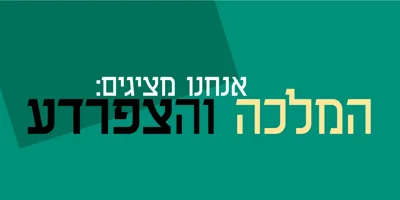
Tagmulim MF Font
Tagmulim MF Font is perfect for cultural publications, international branding, multilingual designs, religious institutions, heritage projects, academic materials, and cross-cultural communications. This specialized typeface brings authentic character and linguistic precision to diverse global applications.
Tagmulim MF Font is exciting because it combines traditional typographic heritage with modern functionality, featuring carefully crafted letterforms that honor cultural authenticity while ensuring optimal performance in contemporary multilingual design contexts and digital environments.
The Tagmulim MF Font family includes multiple weights and extensive character sets supporting various languages and scripts. This comprehensive collection provides designers with complete typographic solutions for complex multilingual and cultural communication projects.
Tagmulim MF Font offers designers access to a thoughtfully crafted typeface that bridges cultural traditions with modern design requirements. This distinctive font features meticulously designed letterforms with authentic character details that respect linguistic heritage while ensuring exceptional functionality across digital and print applications. The typeface showcases careful attention to cultural sensitivity and technical precision that ensures accurate representation of diverse languages and scripts. Its specialized character makes it particularly suitable for organizations and projects that require authentic cultural communication and linguistic accuracy. Tagmulim MF Font delivers consistent performance across various multilingual applications while maintaining cultural integrity and visual coherence. The font's heritage-conscious design and professional quality make it an essential tool for designers working on projects that require respectful representation of cultural diversity and effective cross-cultural communication that honors tradition while embracing contemporary design standards.